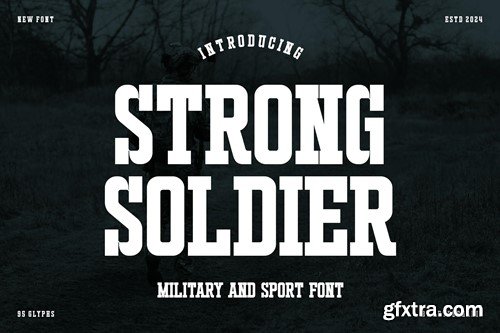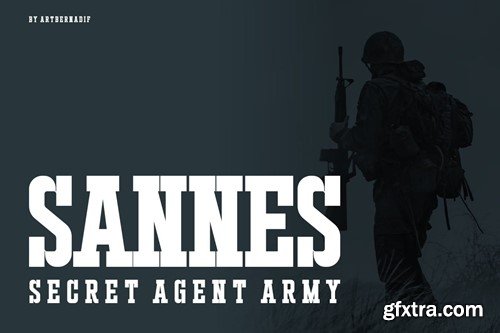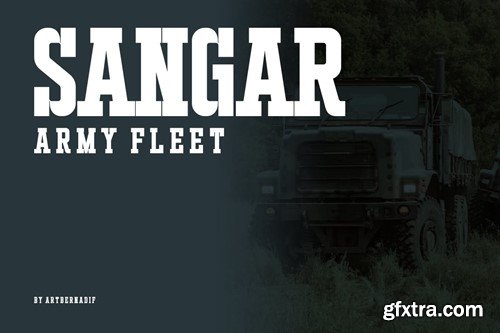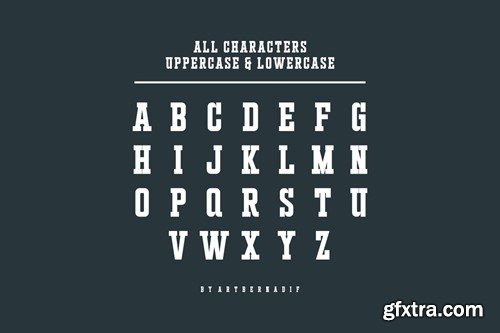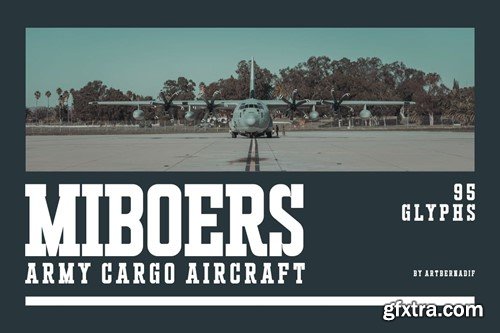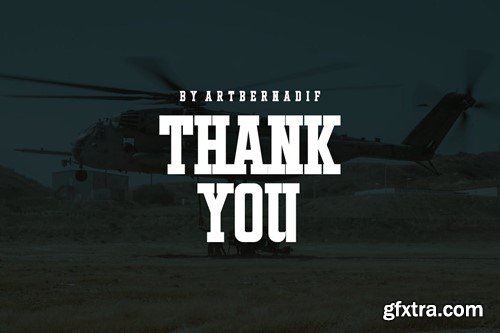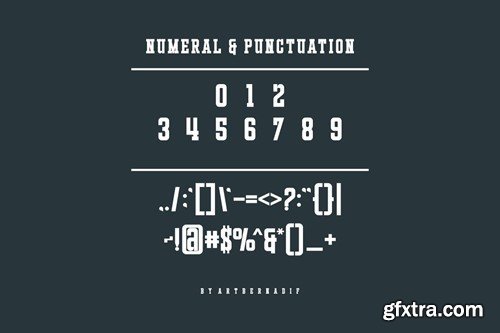
强军 - 军事和体育字体 RCE3FAR
Strong Soldier - Military and Sport Font RCE3FAR
Strong Soldier - Military and Sport Font
Introducing our new product Strong Soldier Font - Modern Font
Strong Soldier Font- Modern Font is a bold and authentic display font. The font is suitable for any branding project like logo, t-shirt printing, esport, and many more. outstanding in a wide range of contexts.